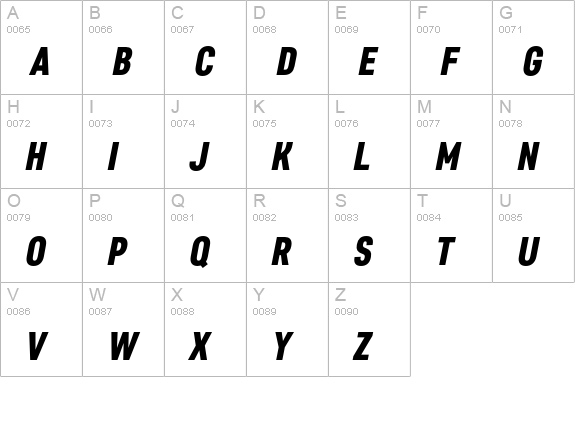
Core Sans D 77 Cn Black Italic is a maximum-weight, dramatic, italic variant in the Core typeface family \xE2\x80\x94 well suited to maximum-impact headlines, posters, and packaging.
Core Sans D 77 Cn Black Italic is a bold and dynamic font that exudes power and sophistication. Its sleek and modern design makes it perfect for creating eye-catching headlines and striking designs. The sharp angles and slanted italics give this font a sense of movement and energy, making it ideal for projects that require a strong and impactful look. What makes Core Sans D 77 Cn Black Italic even more appealing is that it is available for free download at FontsMarket.com. This means that you can easily access this high-quality font without any cost, making it a great option for designers on a budget or anyone looking to add a touch of elegance to their projects without breaking the bank. Don't miss out on the opportunity to elevate your designs with this stunning typeface – download Core Sans D 77 Cn Black Italic for free today!